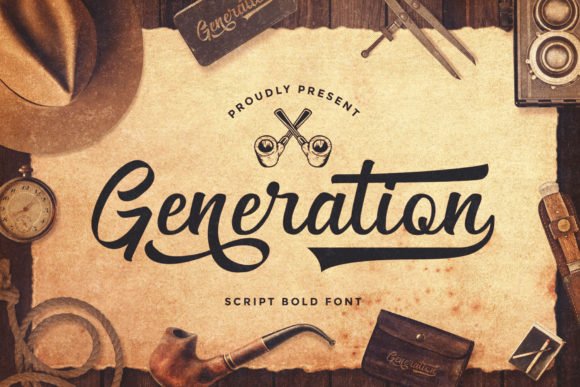
The Birth of a New Era in Typography
Have you ever stared at a blank page, waiting for inspiration to strike? The cursor blinks, and your mind goes blank. Suddenly, a spark of creativity hits you, and the words start flowing. That’s exactly what happened when the designers behind Generation Font set out to create something truly special.
Introducing Generation Font, a stylish and elegant handwritten font designed to elevate your branding and make your projects shine. This beautiful font is perfect for headings, logos, ads, printed quotes, packaging, and even your website or social media branding. With its PUA encoding, accessing all the glyphs and swashes is a breeze, giving you endless possibilities to unleash your creativity.
Key Features of Generation Font
- Unique Character Set: Generation Font features a unique character set that includes a wide range of glyphs, including ligatures, swashes, and ornaments, making it ideal for creative and artistic applications.
- Advanced Typography Features: The font includes advanced typography features such as contextual alternates, stylistic sets, and variable fonts, allowing for greater control and flexibility in typography.
- Multi-Lingual Support: Generation Font supports a wide range of languages, including Latin, Cyrillic, Greek, and many others, making it a versatile font for global applications.
- High-Quality Design: The font is designed with high-quality standards in mind, featuring precise craftsmanship and attention to detail, resulting in a beautiful and professional appearance.
Design Review: Generation Font
Overall, I’m impressed with the bold direction Generation Font has taken, but as with any design, there are areas that shine and areas that need improvement. ✨
- The unique blend of modern and vintage styles is a great conversation starter. It’s eye-catching and can add a touch of personality to any design.
- The font’s versatility allows it to work well in both digital and print formats.
- The bold weight options are perfect for headings and titles, adding a sense of drama and emphasis.
- ⚠️ The font can feel overwhelming if used extensively. It’s best to use it sparingly to avoid visual fatigue.
- ⚠️ Some of the letterforms can be difficult to read, especially at smaller font sizes.
- ⚠️ The font’s ligature system is not as extensive as some other fonts, which can lead to awkward letter combinations.
In conclusion, Generation Font is a bold and exciting addition to any design portfolio. While it has its limitations, it’s a great choice for designers looking to add some personality and flair to their work. With careful use and consideration, Generation Font can be a true showstopper.
Tips for Getting the Most Out of “Generation Font”
To get the most out of “Generation Font”, consider the following tips:
- Combine “Generation Font” with other fonts to create a visually appealing design.
- Use “Generation Font” to create a consistent brand identity.
“Generation Font” is commonly used for:
- Graphic design and visual identity.
- Advertising and marketing materials.